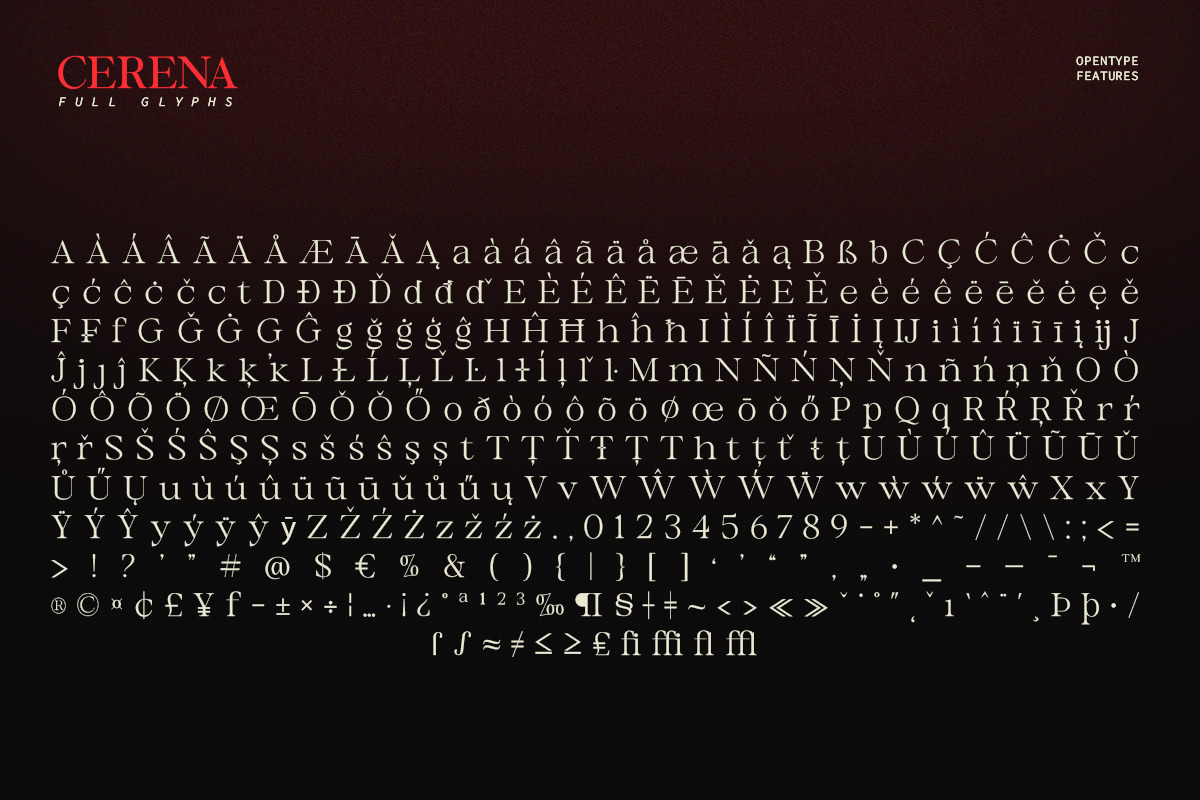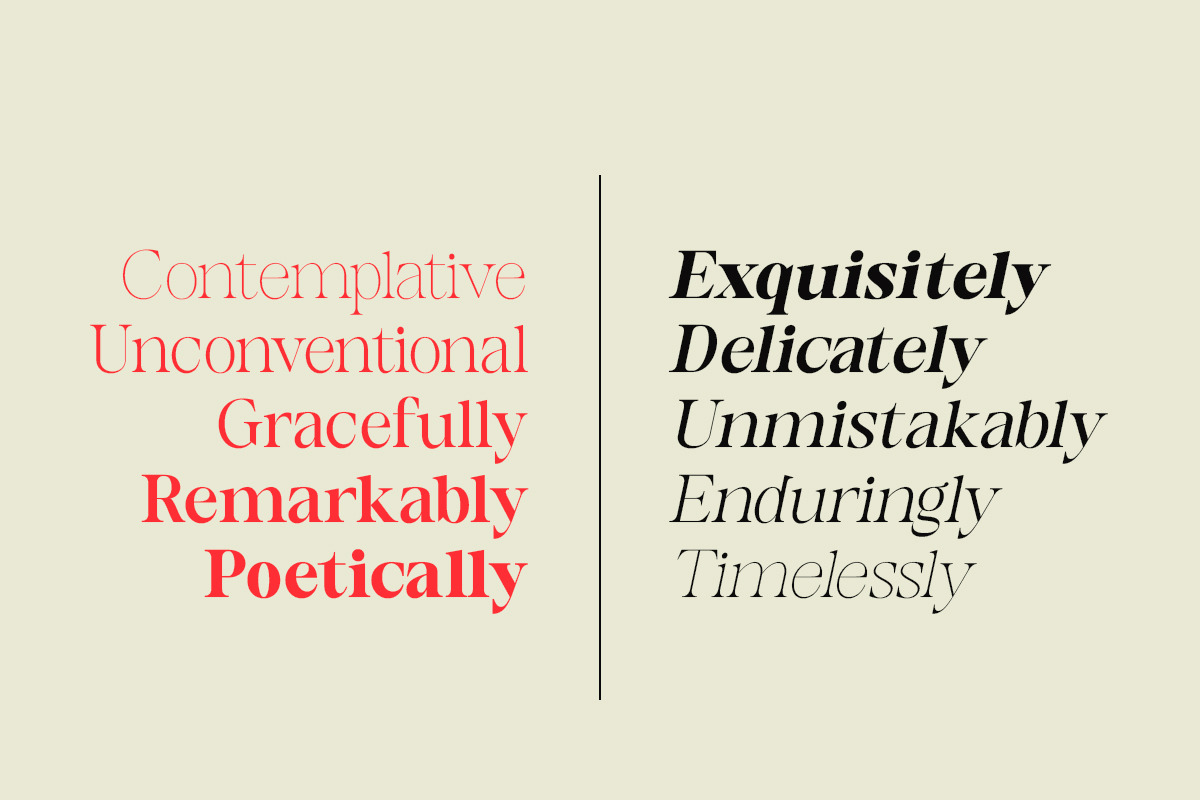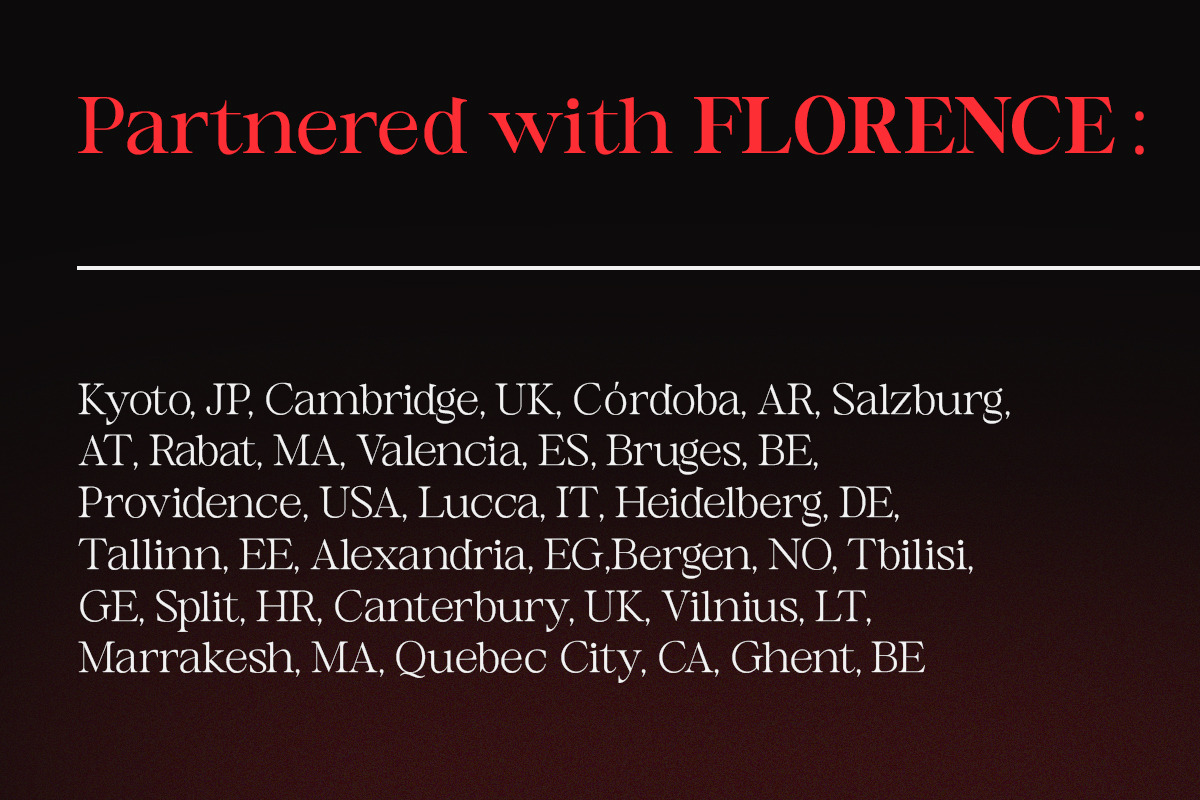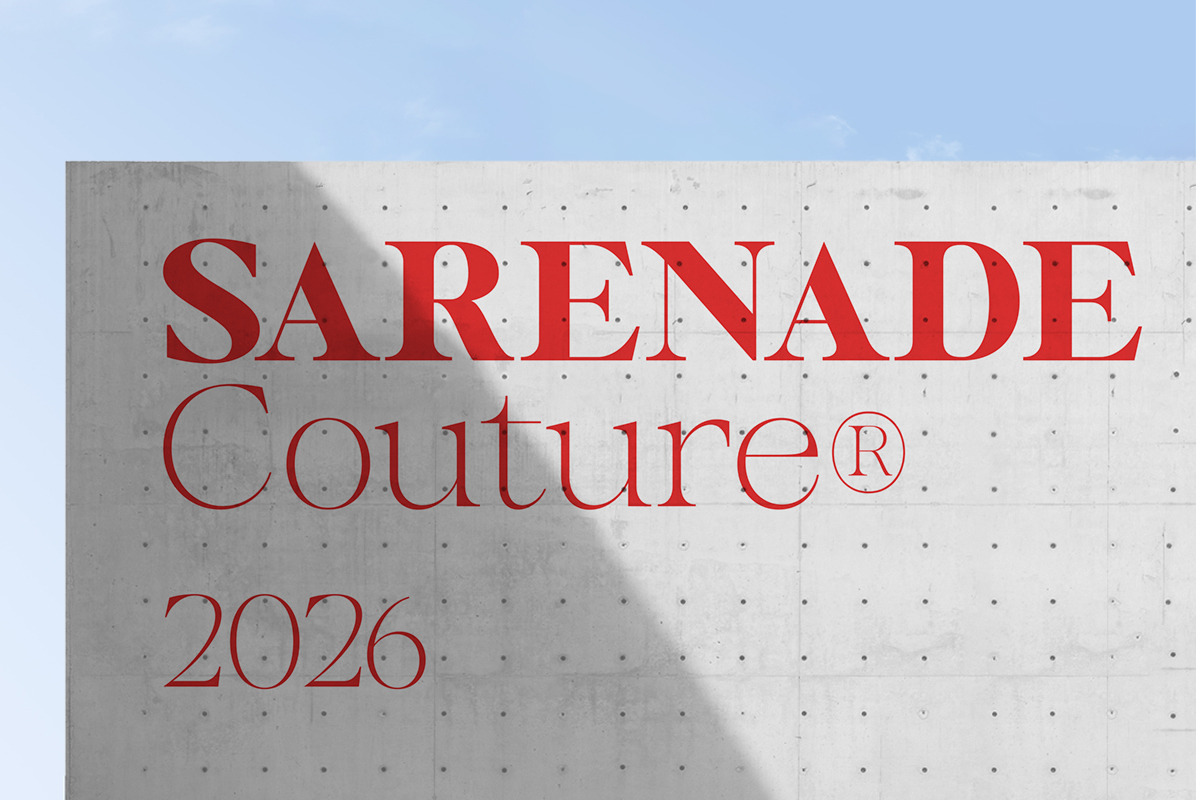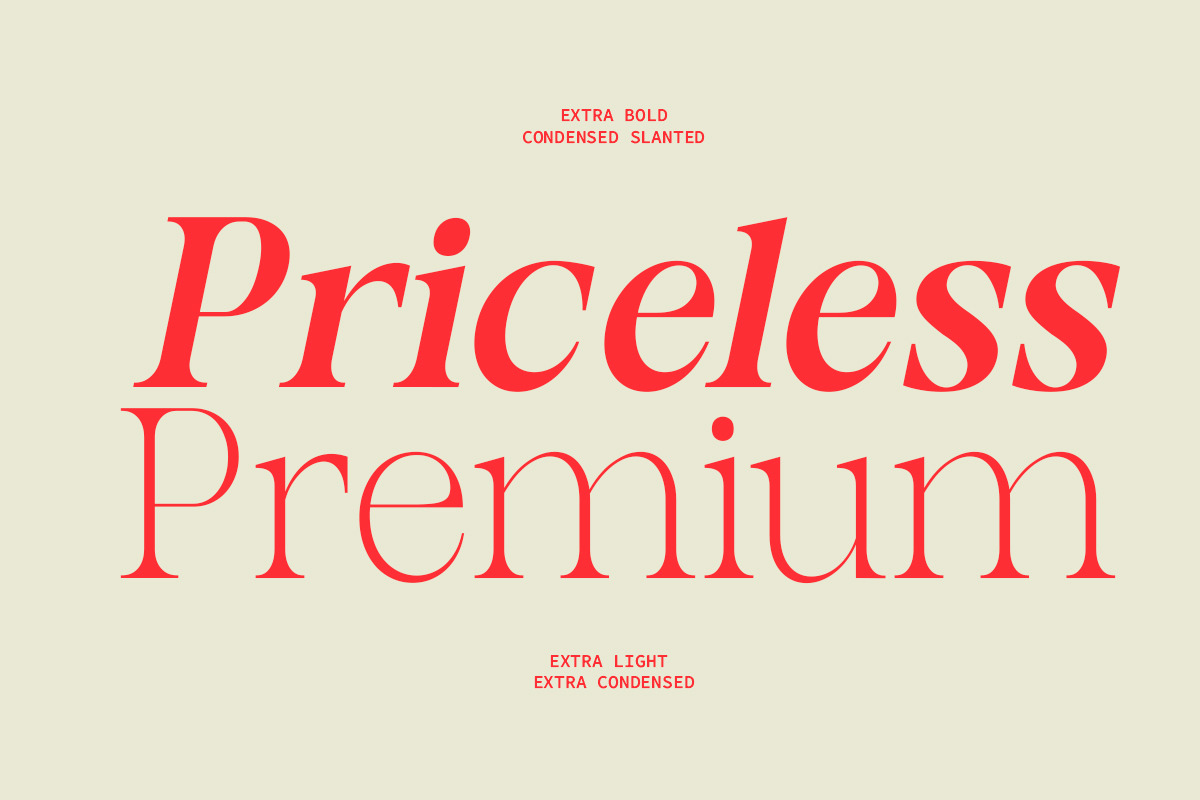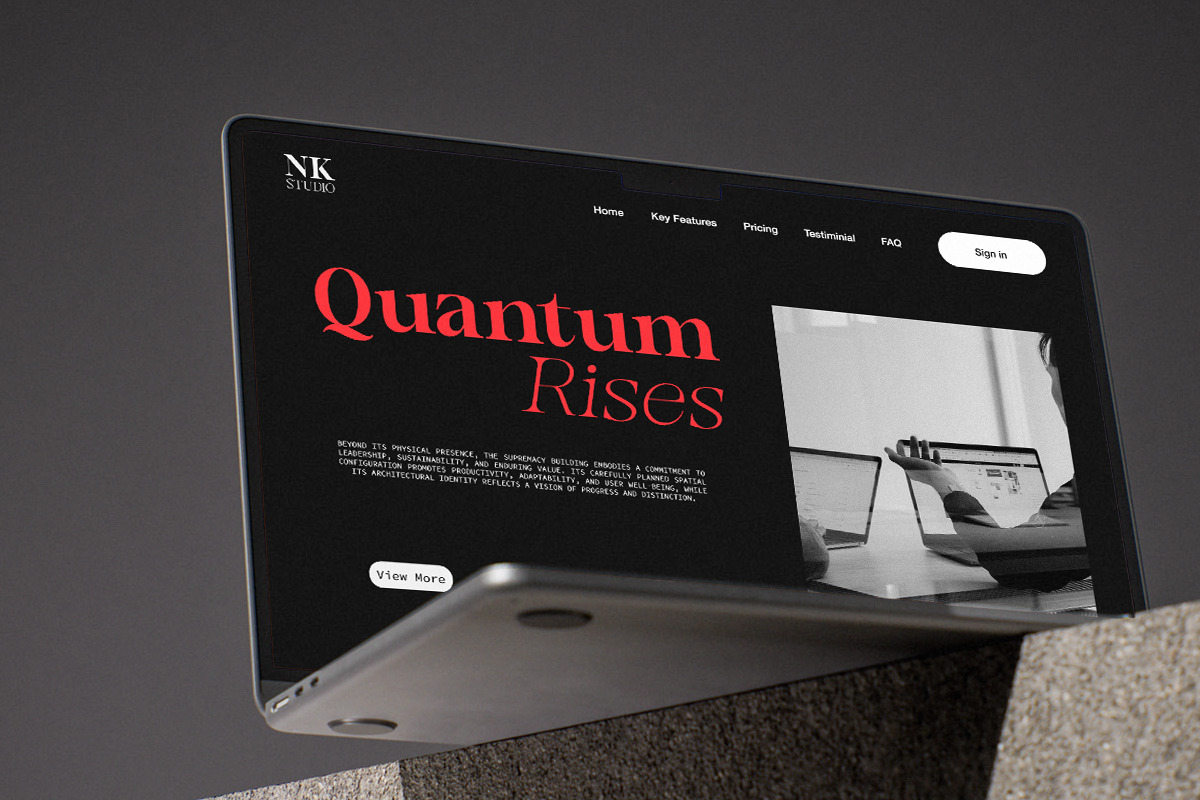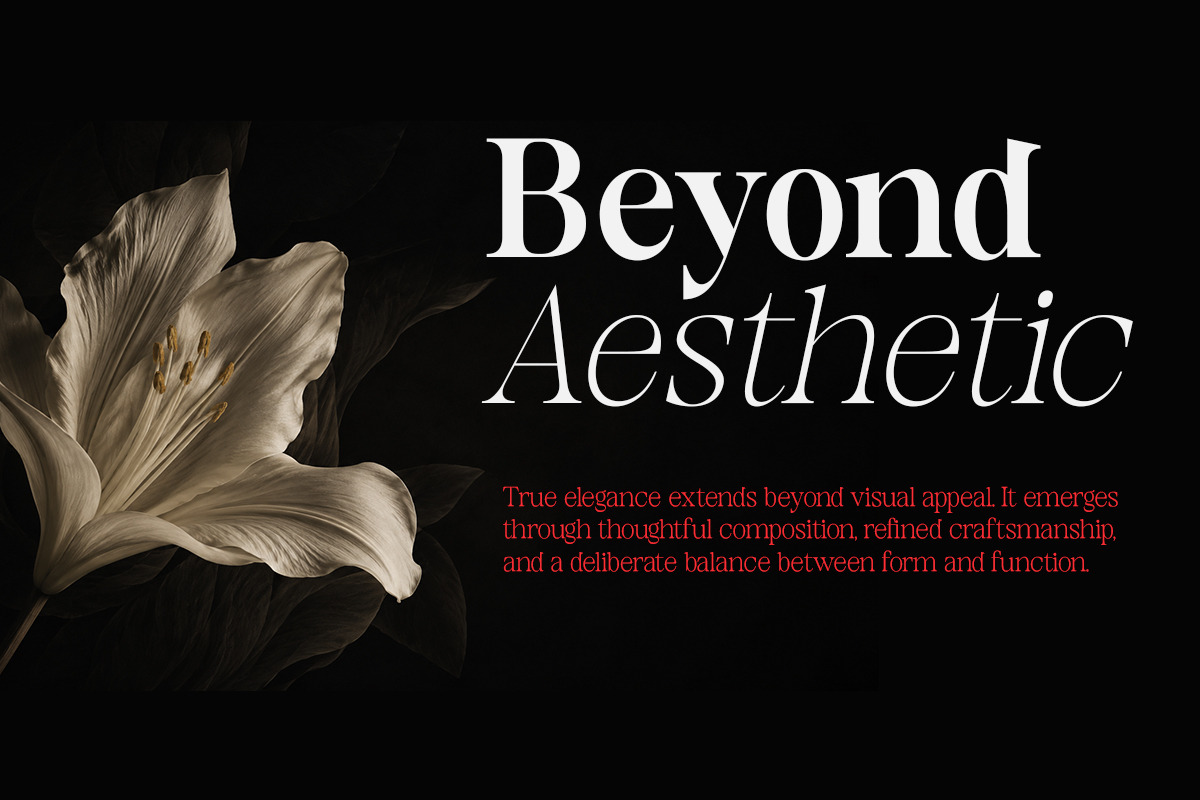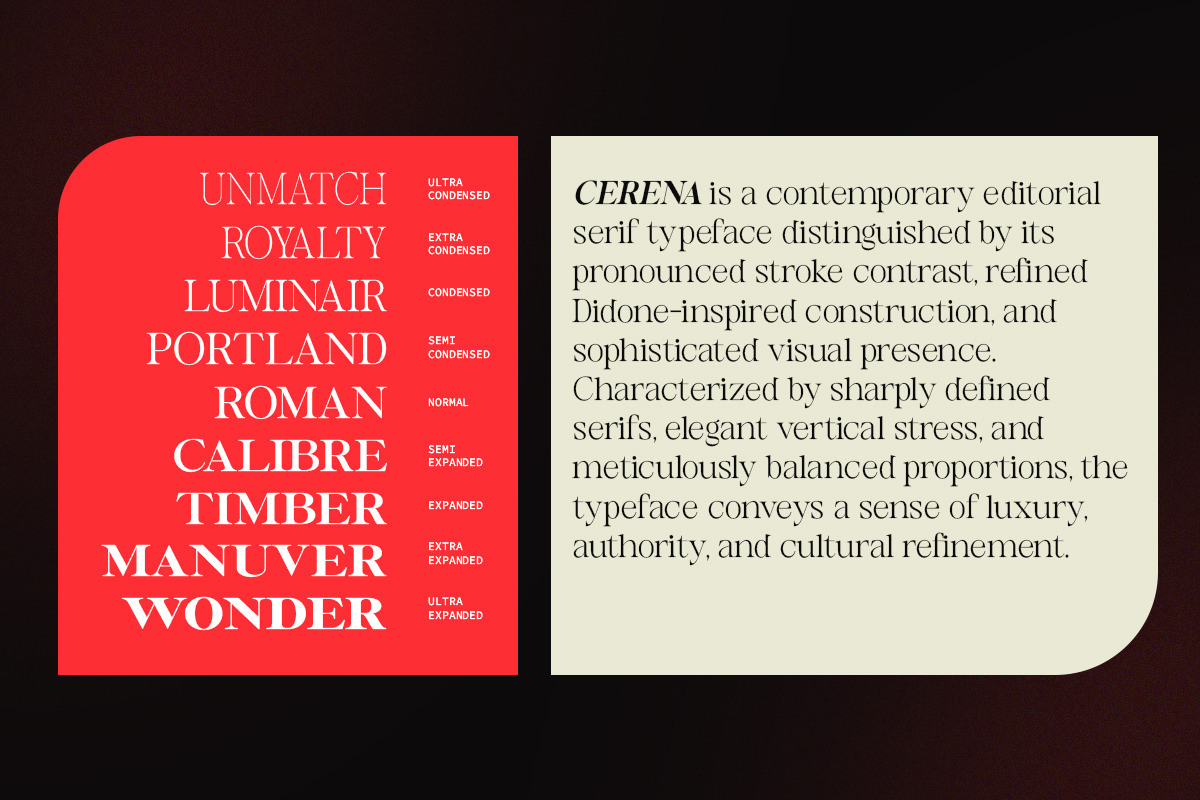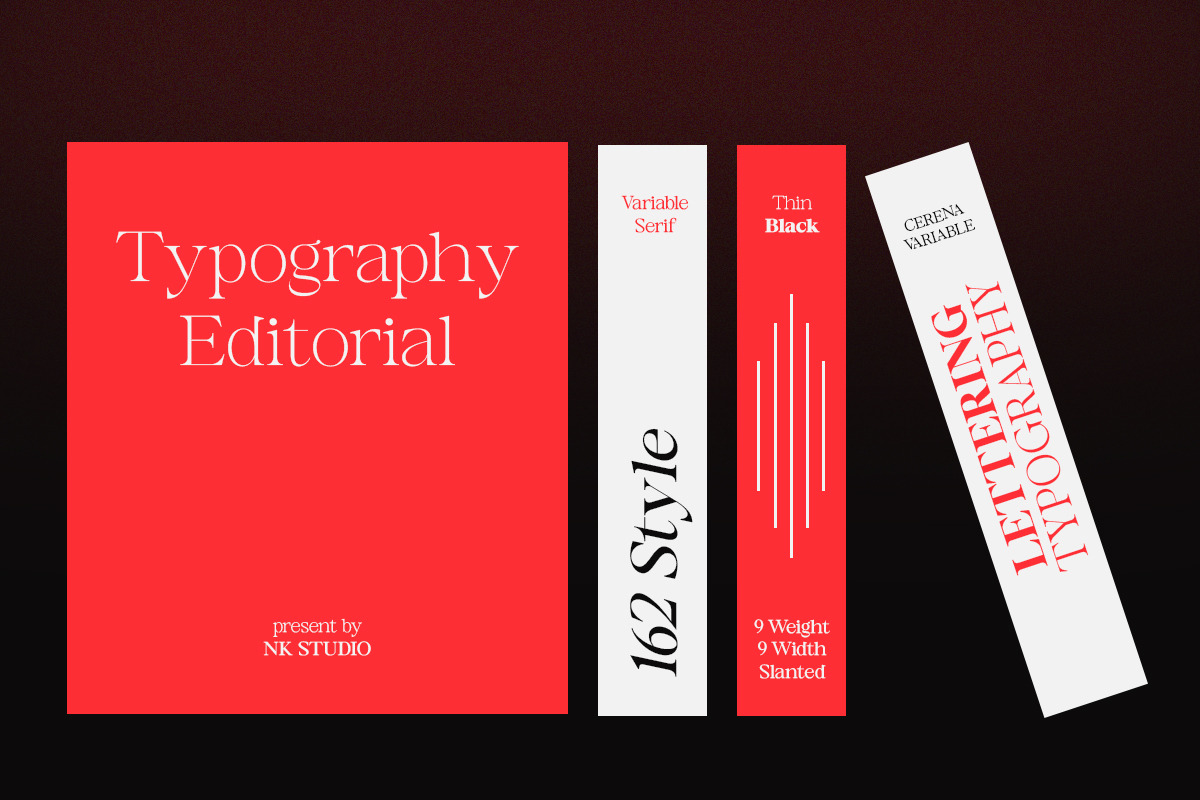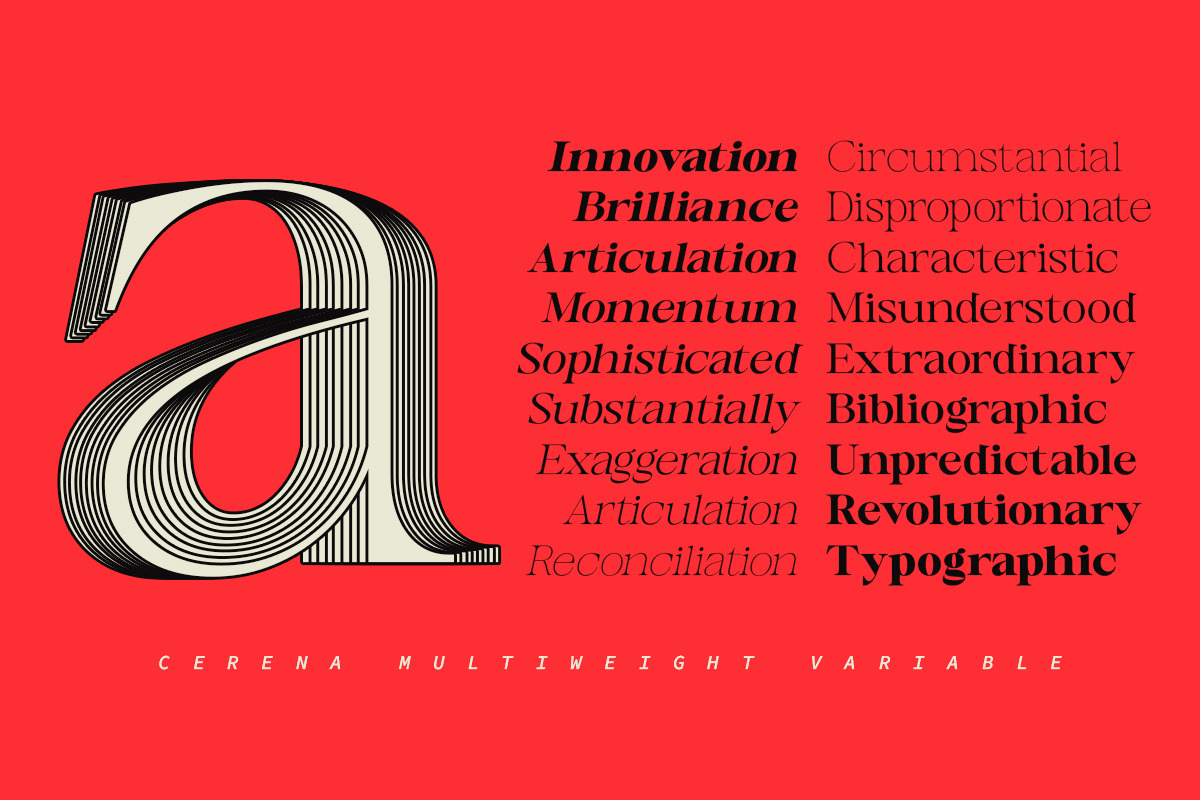
Cerena
CERENA is a sophisticated editorial serif typeface designed for modern luxury branding. Combining timeless elegance with contemporary versatility, **CERENA **features refined, high-contrast letterforms, graceful curves, and a robust variable system with 9 weights, 9 widths, and a slant axis, giving designers complete creative freedom.
Designed to enhance fashion editorials, premium packaging, magazine titles, and luxury identities, **CERENA **easily adapts from subtle and simple compositions to bold and bold statements. Its distinctive character brings a sense of confidence, elegance, and exclusivity to any project.
With a total of 162 font files, CERENA is the perfect choice for creatives seeking a serif typeface that balances classic beauty with modern functionality.
CERENA is where timeless editorial aesthetics meet the future of typography.